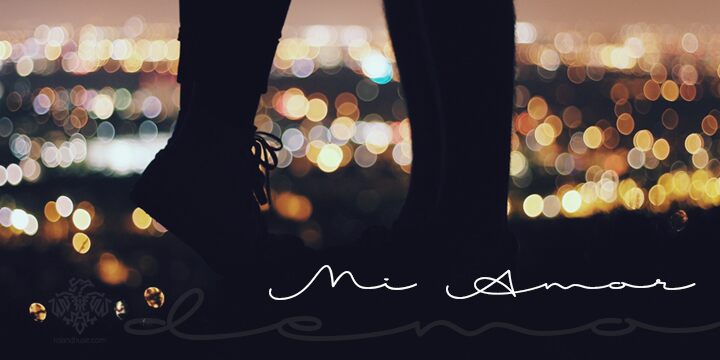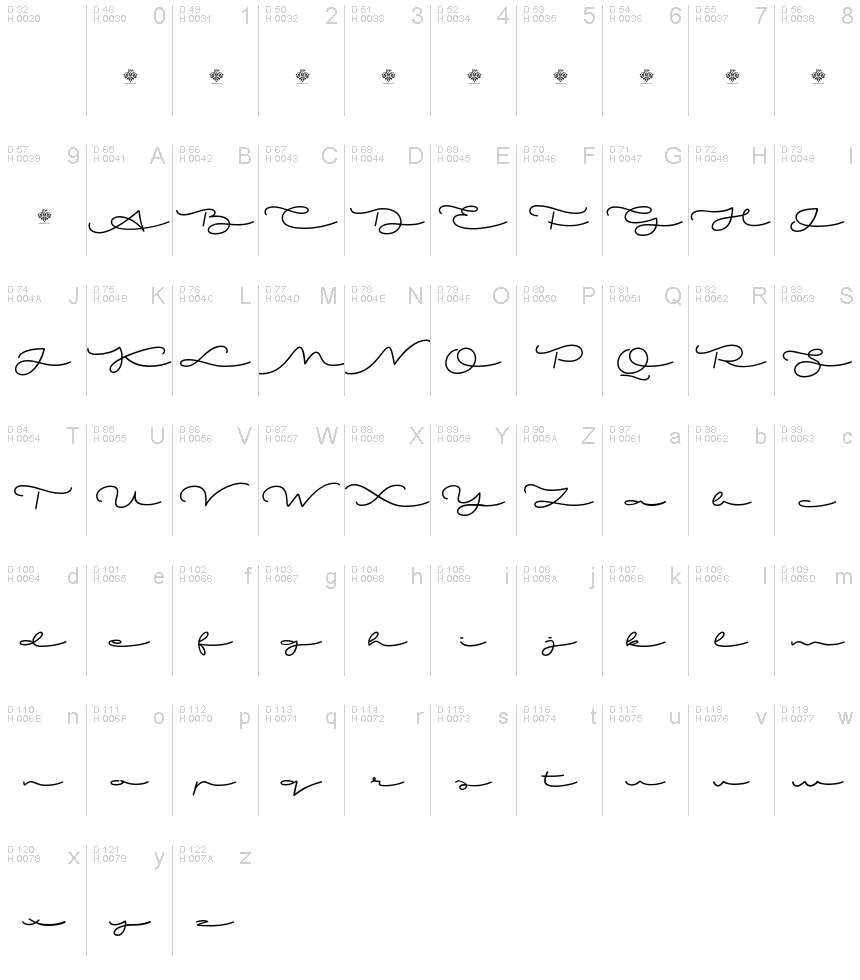
Mi Amor is a captivating handwritten font that exudes a sense of warmth and elegance. Designed by Roland Huse, this signature-style font features a delicate, light weight that lends itself to a graceful, expressive aesthetic.
The expanded width adds a distinctive flair, lending an air of sophistication and refinement. This versatile font shines in a variety of applications, from heartfelt stationery to modern branding, seamlessly blending timeless charm with a contemporary sensibility.
Its distinctive personality and versatility make Mi Amor a compelling choice for designers seeking to infuse their work with a touch of romance and artistry.